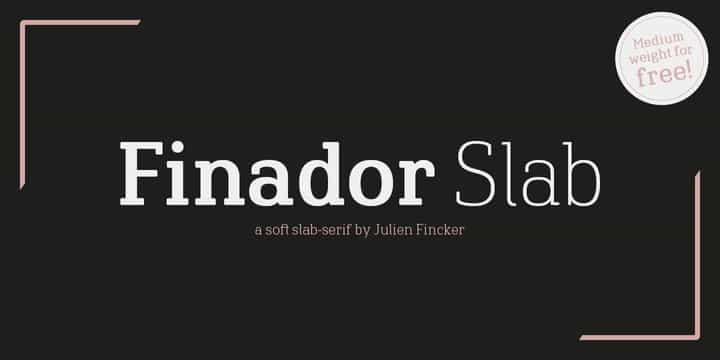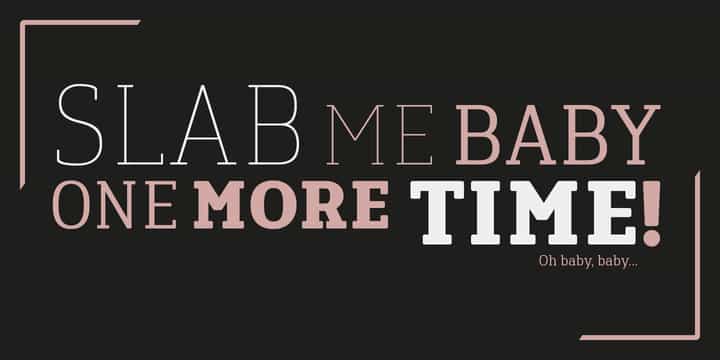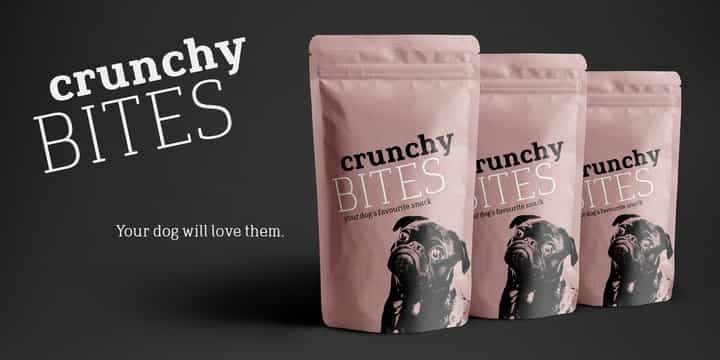
Introducing Finador Font! It is a soft slab-serif family of fonts. It has a powerful characterization and can be employed in many circumstances particularly on the editorial, branding, packaging, and logos. The Slab version was developed from the Finador Sans version. It fits well and works well together and can be used well in conjunction. It’s supports almost every of your needs.